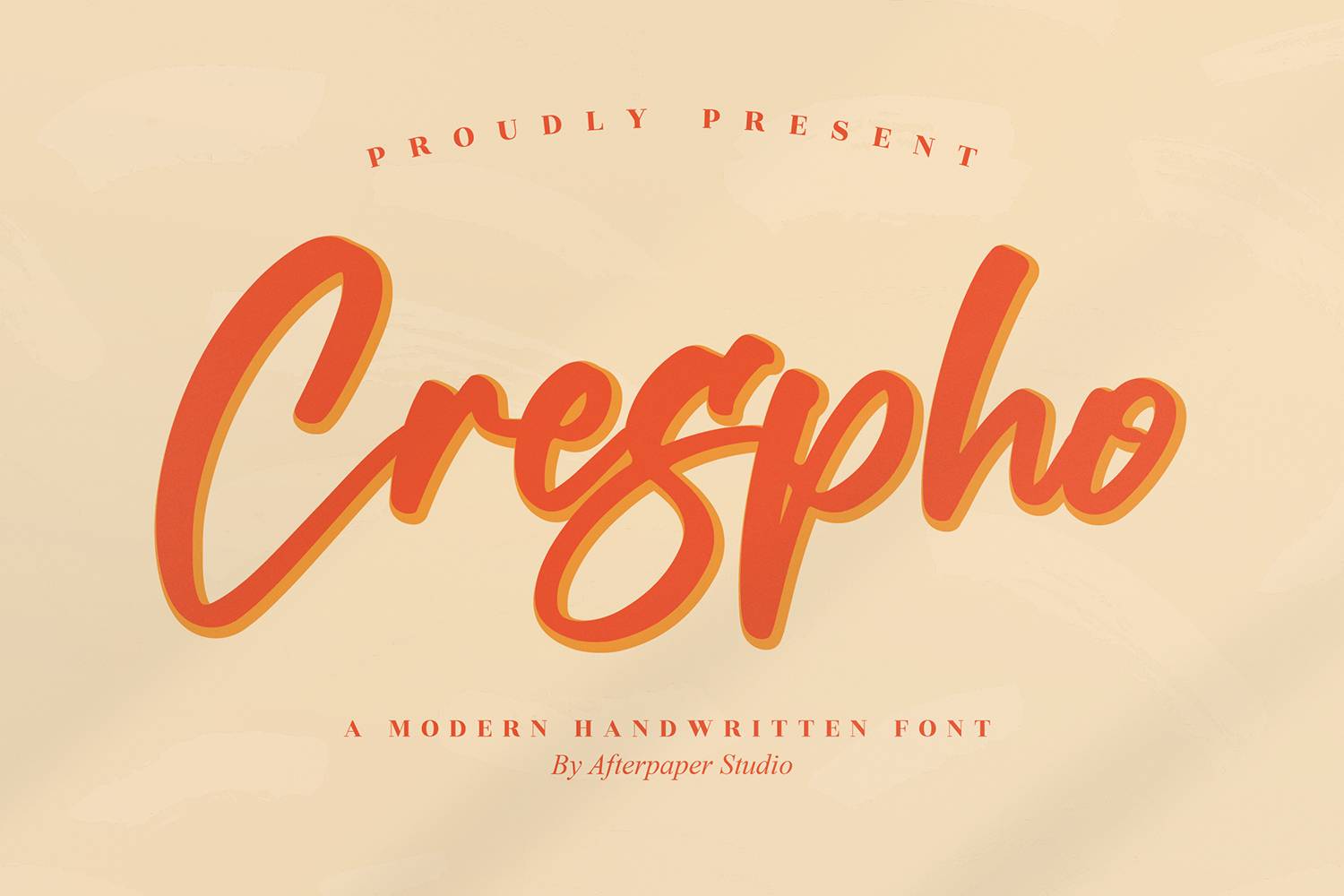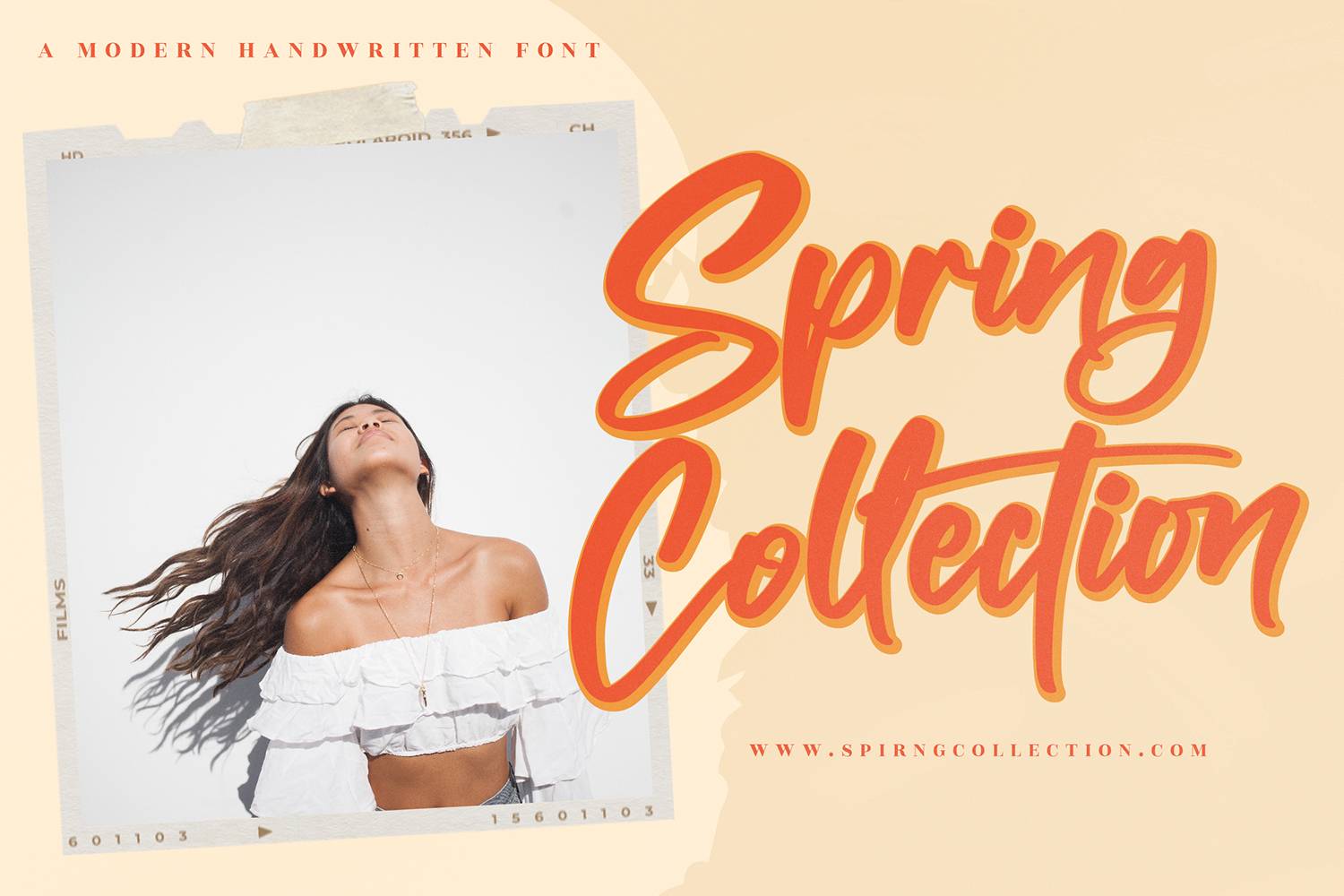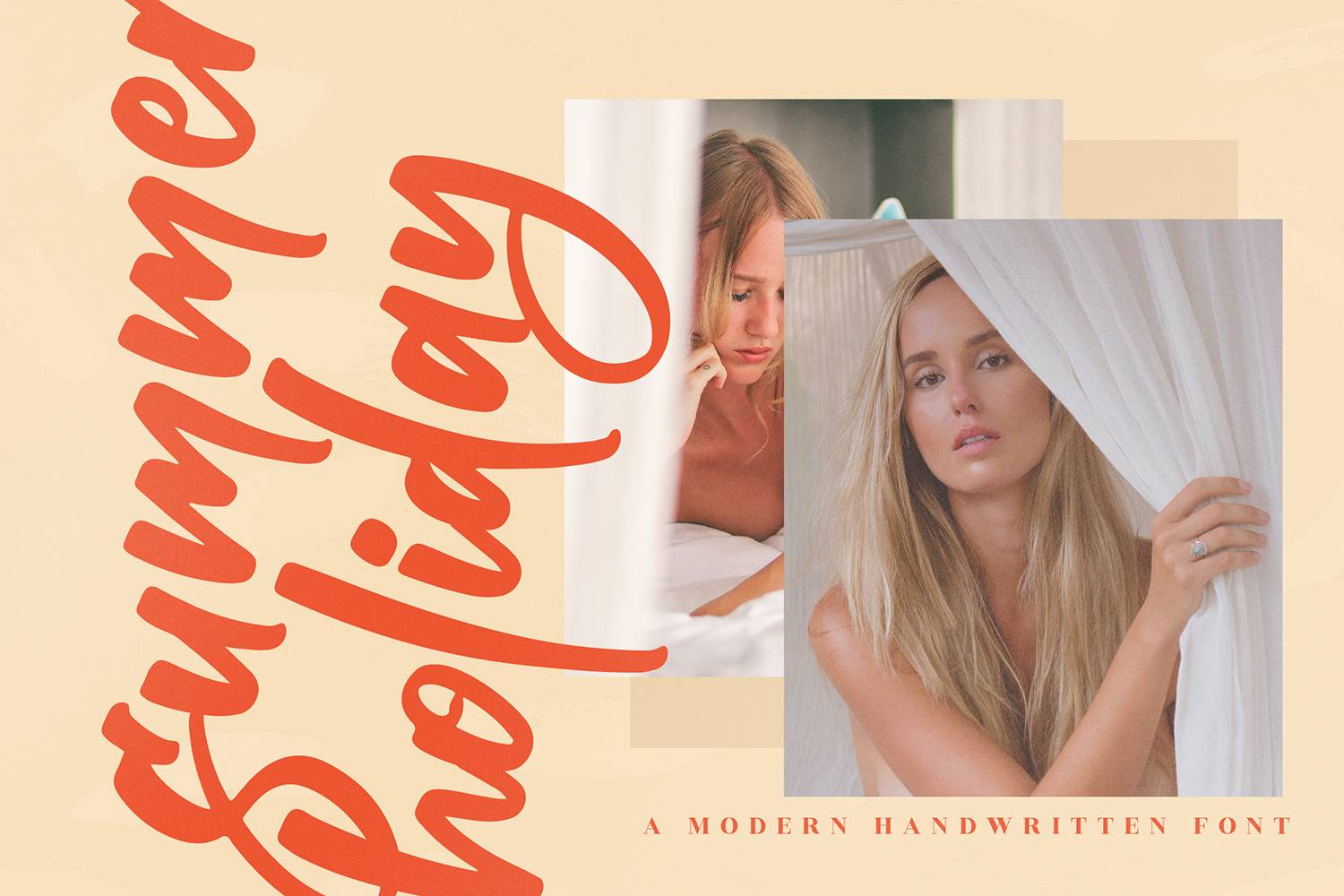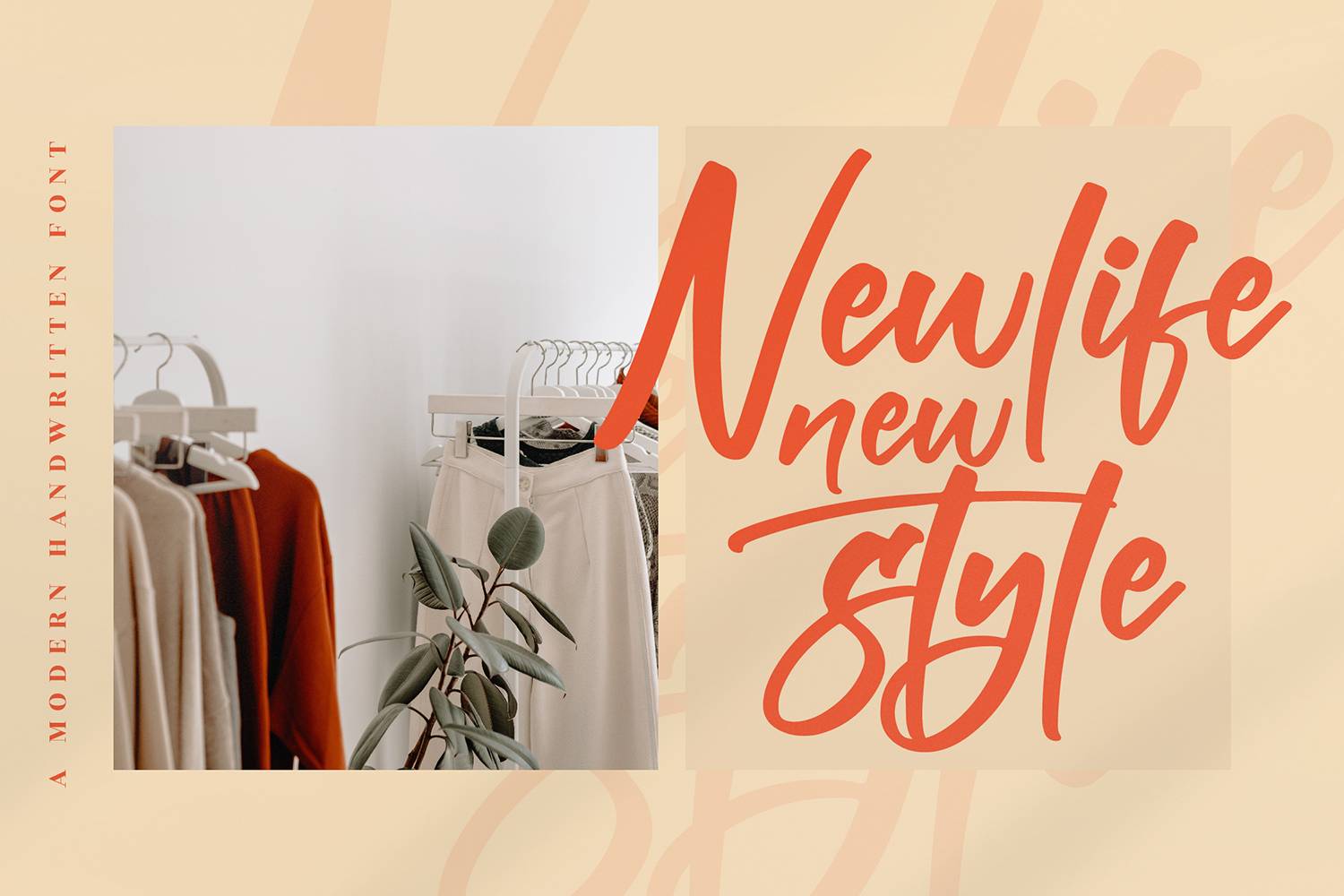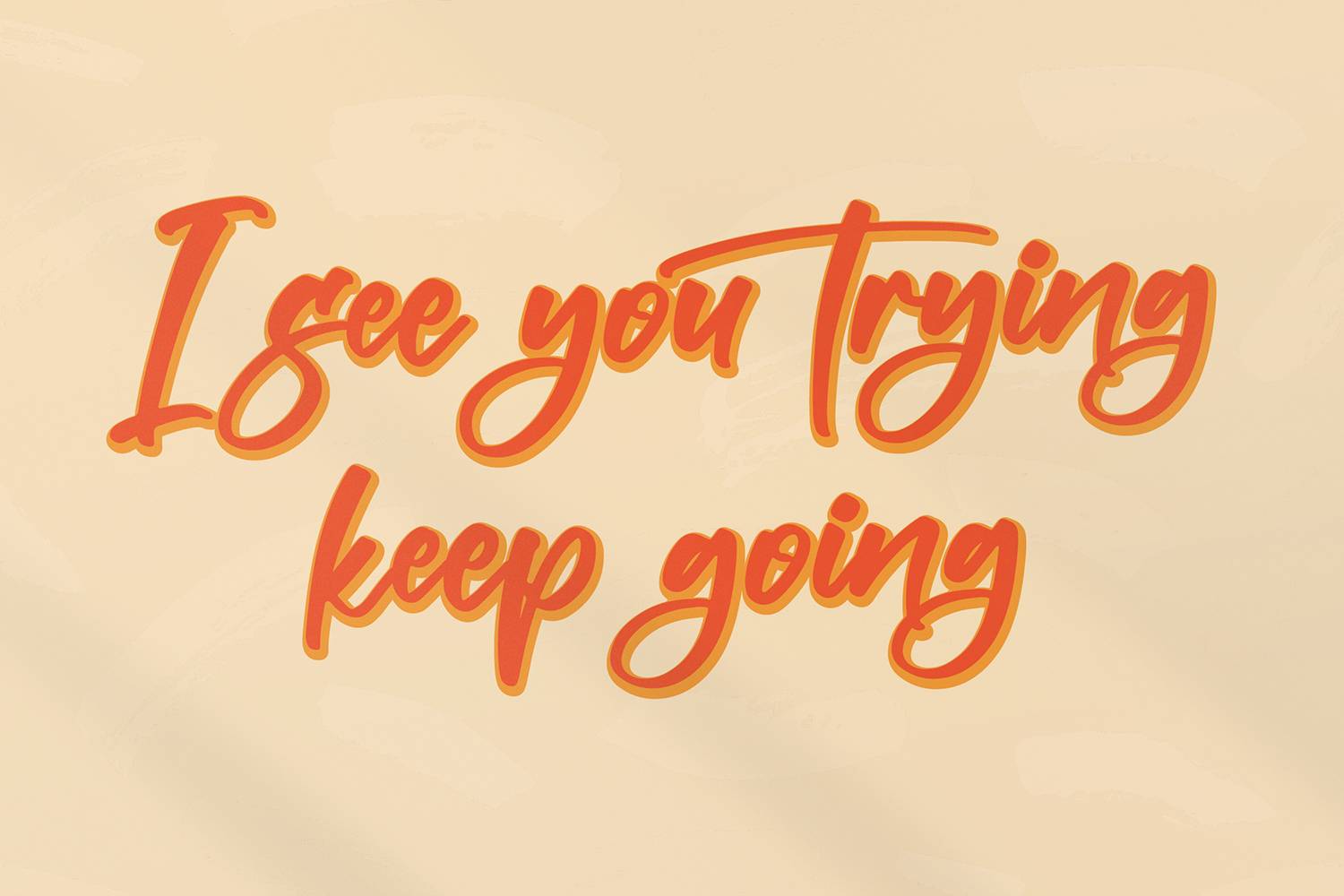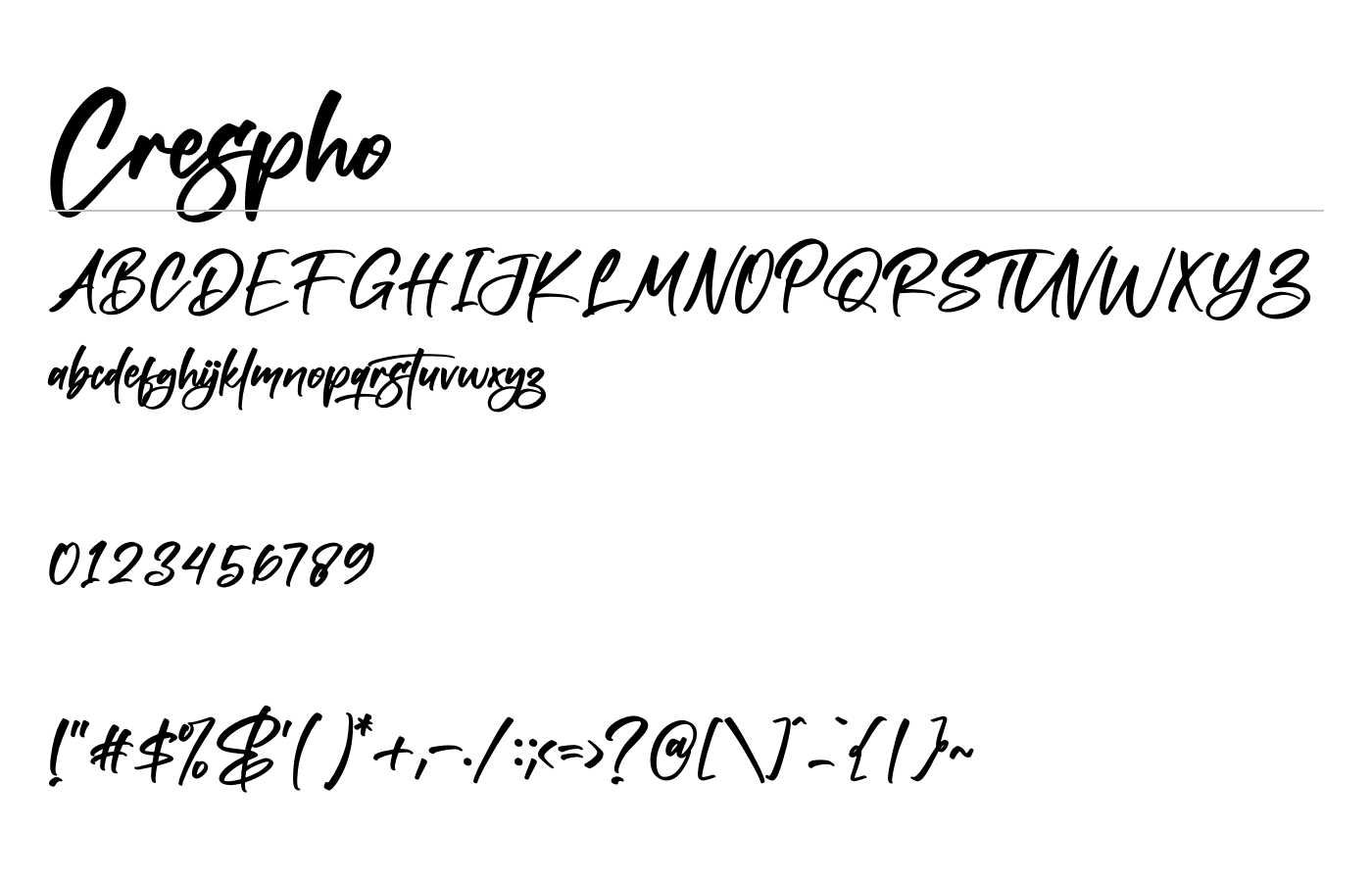
Crespho is a lively script font with a modern, hand-drawn feel, featuring smooth, flowing strokes and a slightly casual yet elegant style. Its medium weight and dynamic letterforms make it perfect for adding a personal, artistic touch to branding, invitations, and creative projects that want to convey warmth and approachability. This font shines in headline usage where a stylish and expressive handwritten look is desired.
Crespho Font